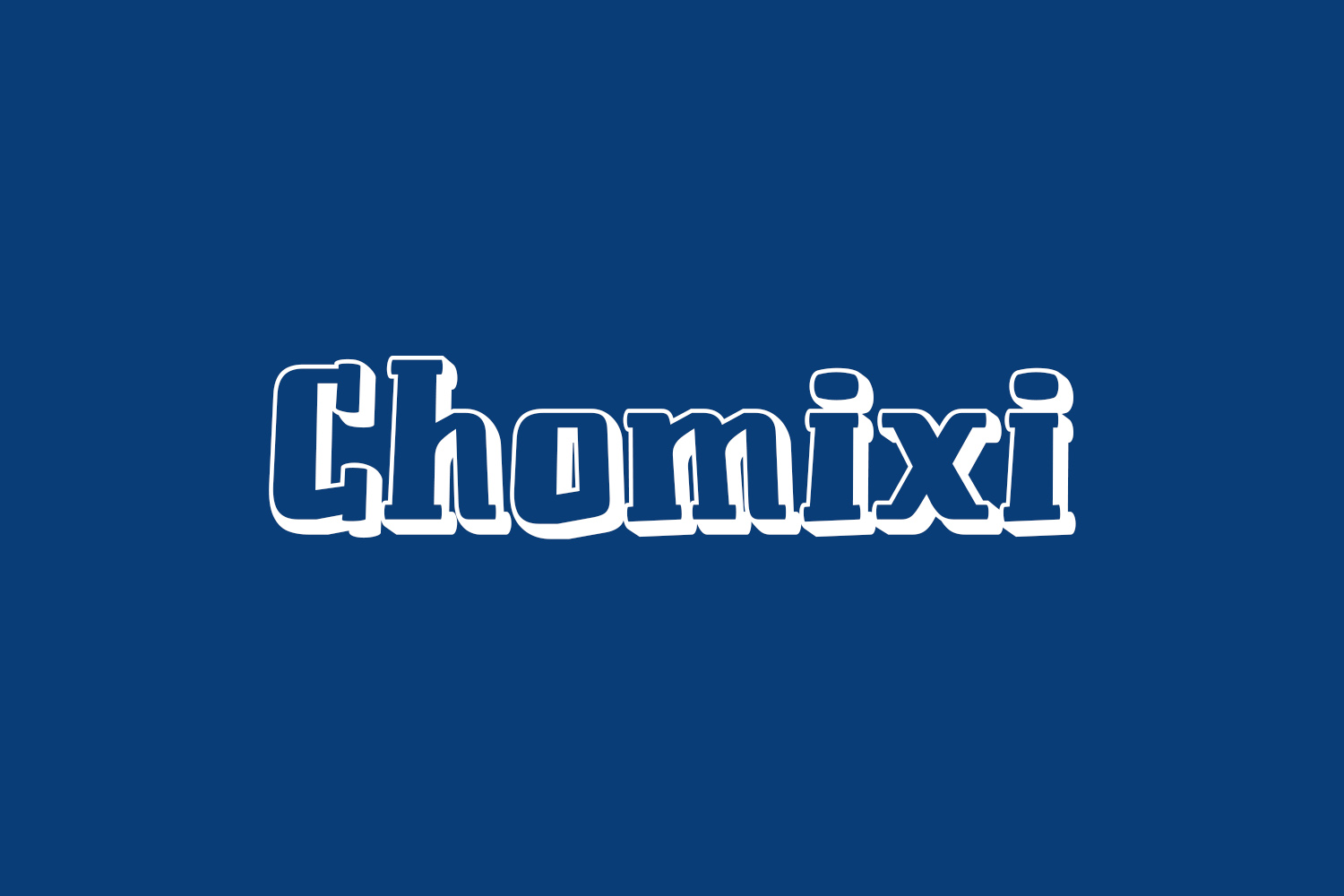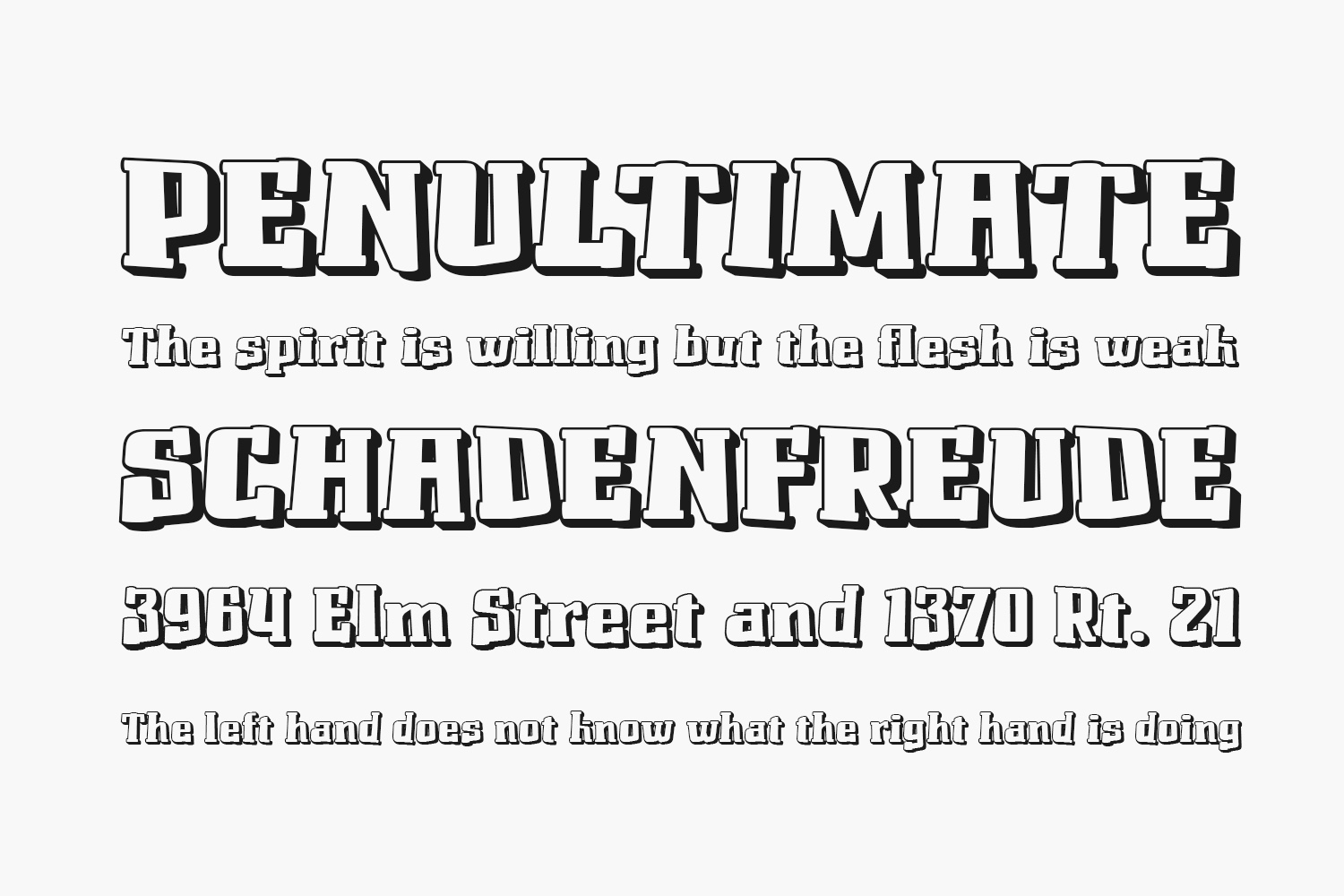
Discover the playful allure of Chomixi Free Font, a bold and vibrant comic display font that exudes fun and uniqueness. Unleash your creativity and transform any design project into a standout masterpiece with the distinct style of Chomoxi. Chomixi Free Font is free for personal use only. Please purchase the full version for commercial use.